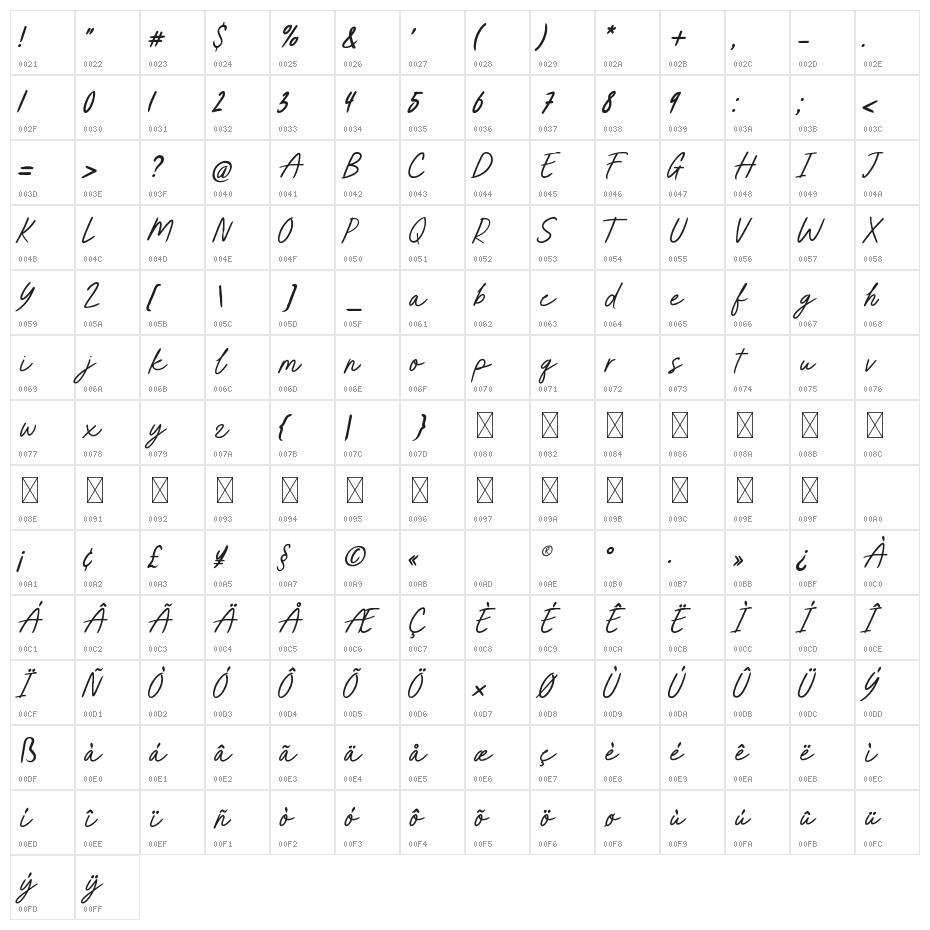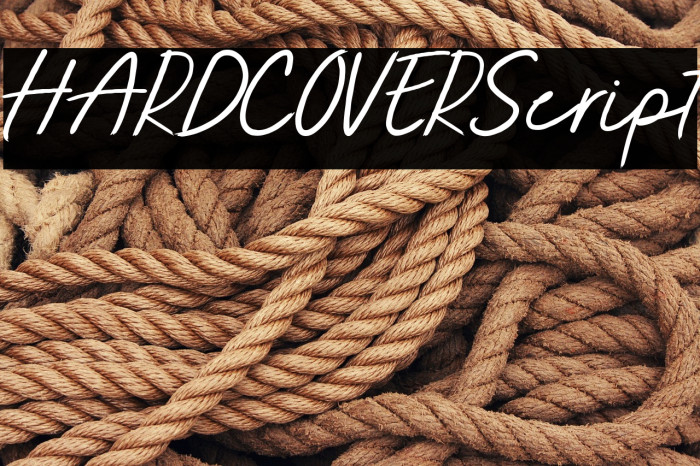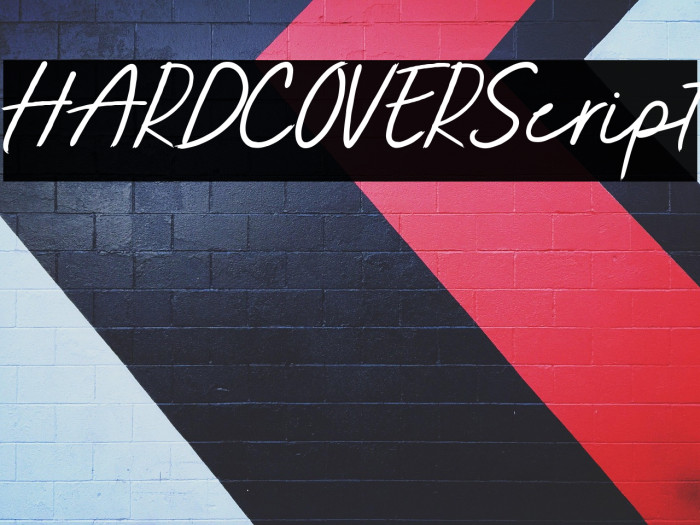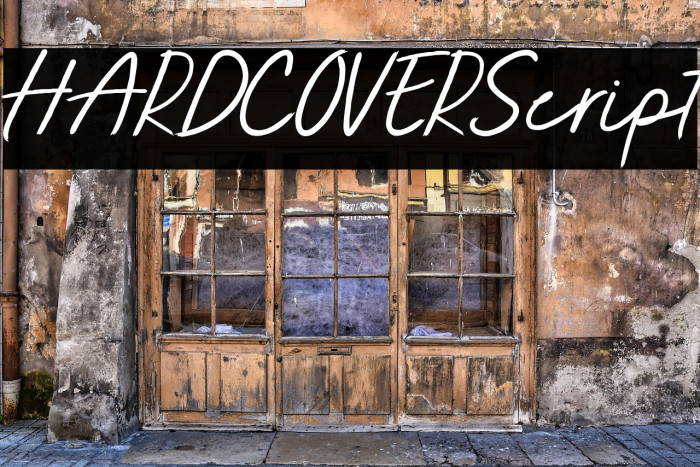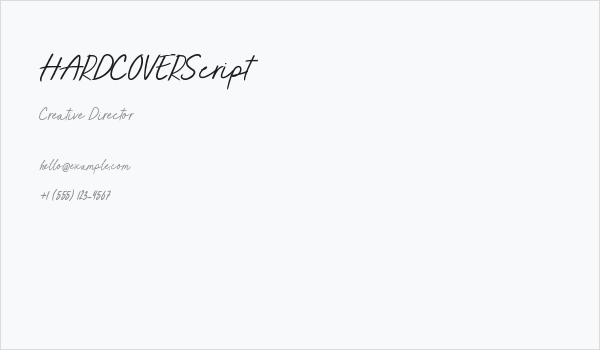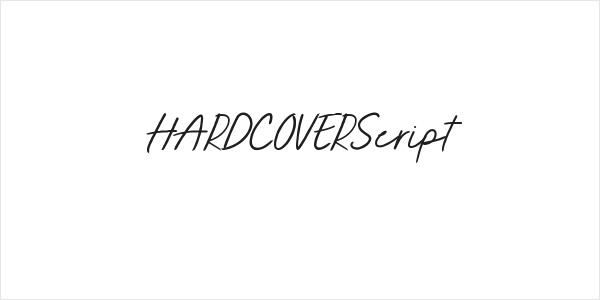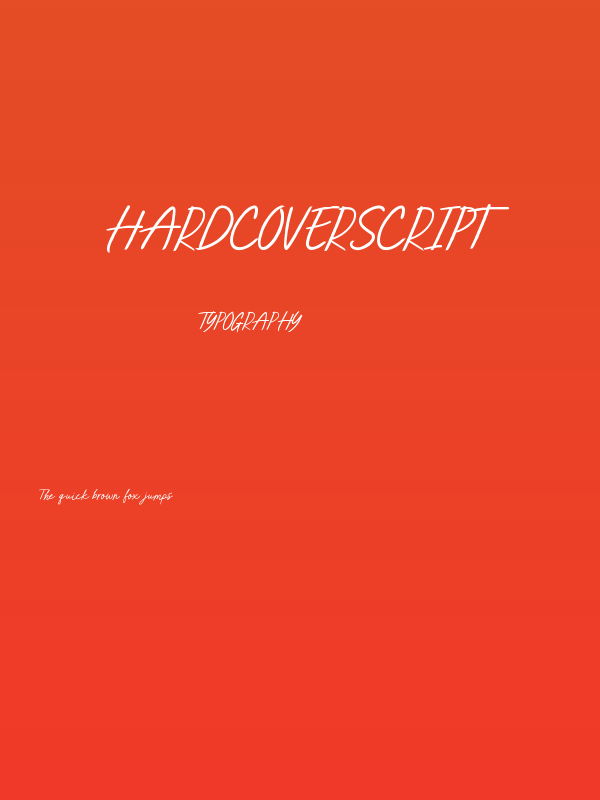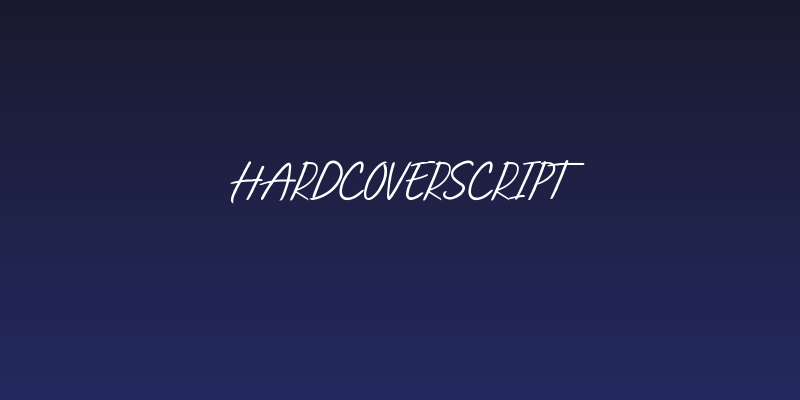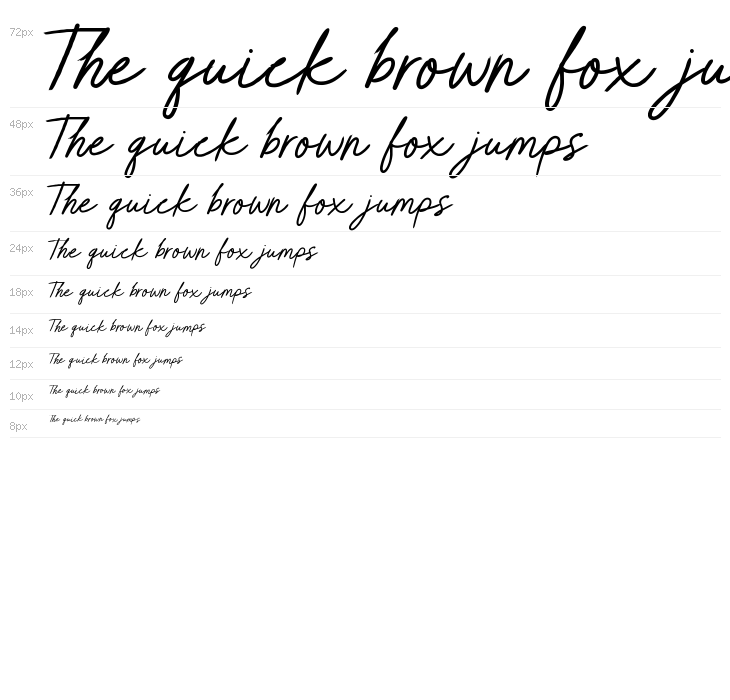
HARDCOVERScript Font
HARDCOVERScript Description
This font features a dynamic and fluid script style, characterized by its elegant and flowing letterforms. The uppercase letters are tall and slightly slanted, giving a sense of movement and grace. The lowercase letters maintain a consistent style, with smooth curves and connections that enhance readability. Numbers and special characters are designed to complement the overall script aesthetic, maintaining the same fluidity and elegance. This font exudes a sense of sophistication and creativity, making it suitable for a variety of artistic and formal applications.
| Overall Style | Elegant, Artistic |
| Proposed Projects | Ideal for wedding invitations, greeting cards, branding, and artistic projects that require a touch of elegance. |